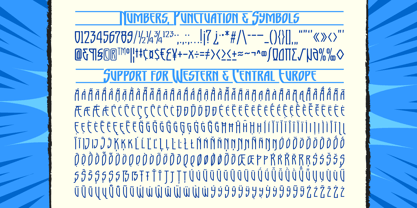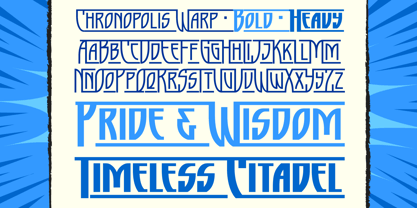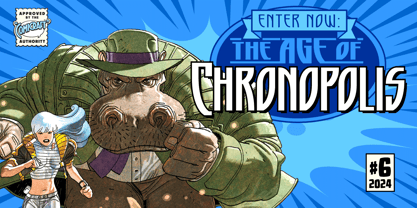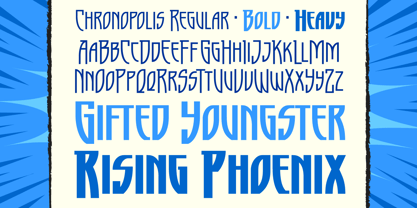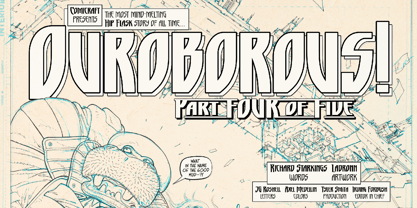
Chronopolis
von Comicraft
Die Schriftfamilie Chronopolis wurde von John Roshell entworfen und von Comicraft veröffentlicht. Chronopolis enthält 8 Stile und Familienpaketoptionen.
The Pride and Wisdom of the Shi’ar is Legendary! The Timeless Citadels of the Askani pulse throughout the space/time continuum, bending and stretching belief systems, coherent thought and this pair of Variable display fonts begun during the Age of Apocalypse in '97 and completed today (or was it tomorrow?)!
The Future/Past vibes of this Art Nouveau typeset bring style and class to the present day with Regular, Bold & Heavy weights in Regular and Warp styles, with Variable Font weight control. Each contains 30 connecting ligatures, Stylistic Alternates and support for 221 languages.